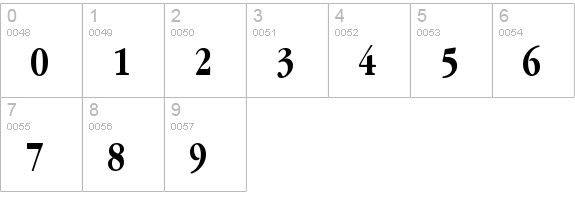
Apple Garamond Bold is a strong, high-contrast variant in the Apple typeface family \xE2\x80\x94 well suited to headlines, attention-grabbing titles, and strong calls-to-action.
Apple Garamond Bold is a stunning and elegant font that exudes sophistication and style. Its bold weight makes a strong statement, perfect for headings, titles, or any design element that needs to stand out. The sleek curves and sharp serifs of Apple Garamond Bold give it a timeless and classic look that will elevate any project. What's even better is that Apple Garamond Bold is available for free download at FontsMarket.com. This means you can easily access this premium font without any cost, making it a valuable addition to your font library. Whether you're working on a branding project, a poster design, or a website layout, Apple Garamond Bold is sure to bring a touch of class and sophistication to your work. Download it now and enhance your designs with this exquisite typeface.